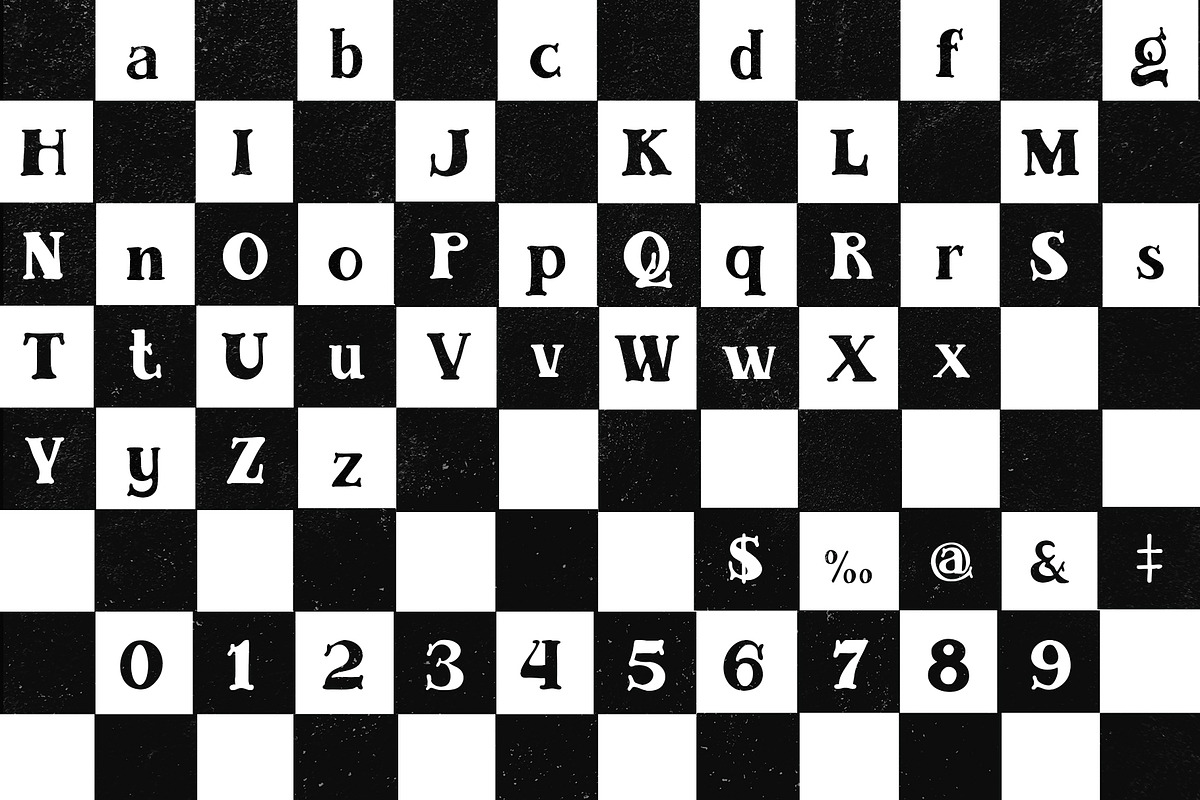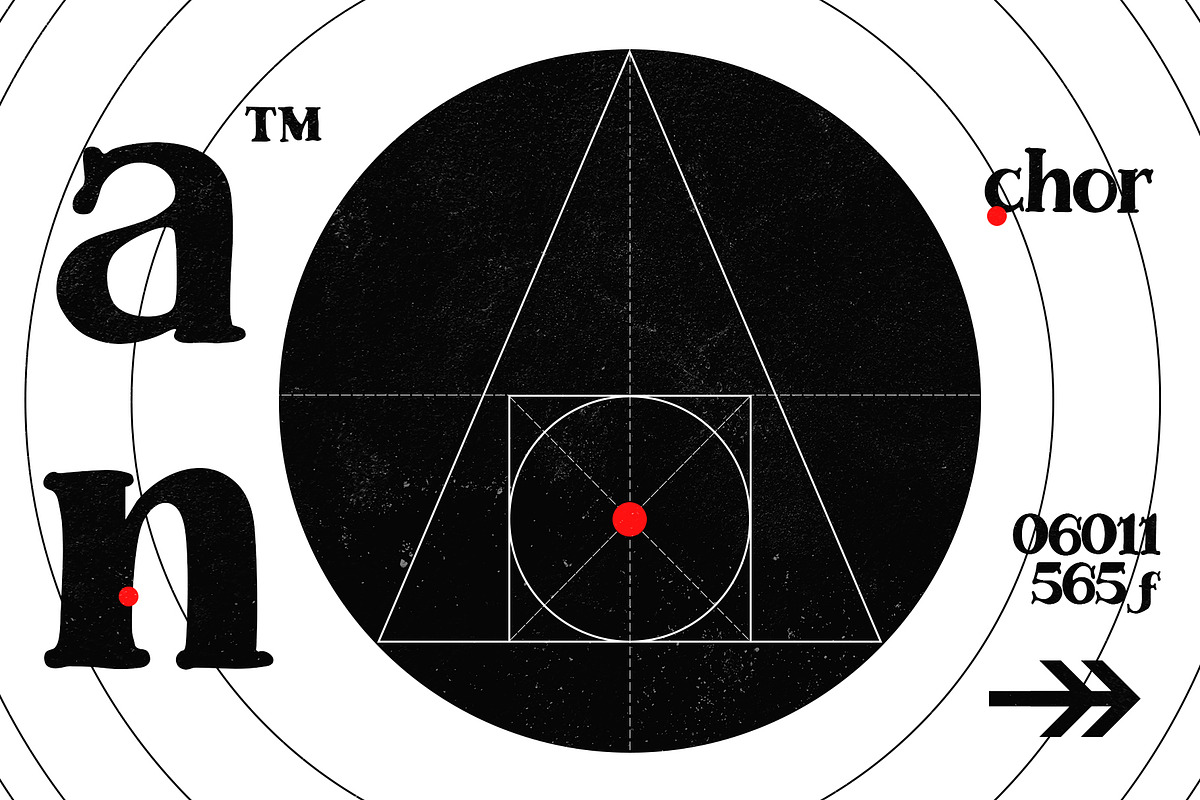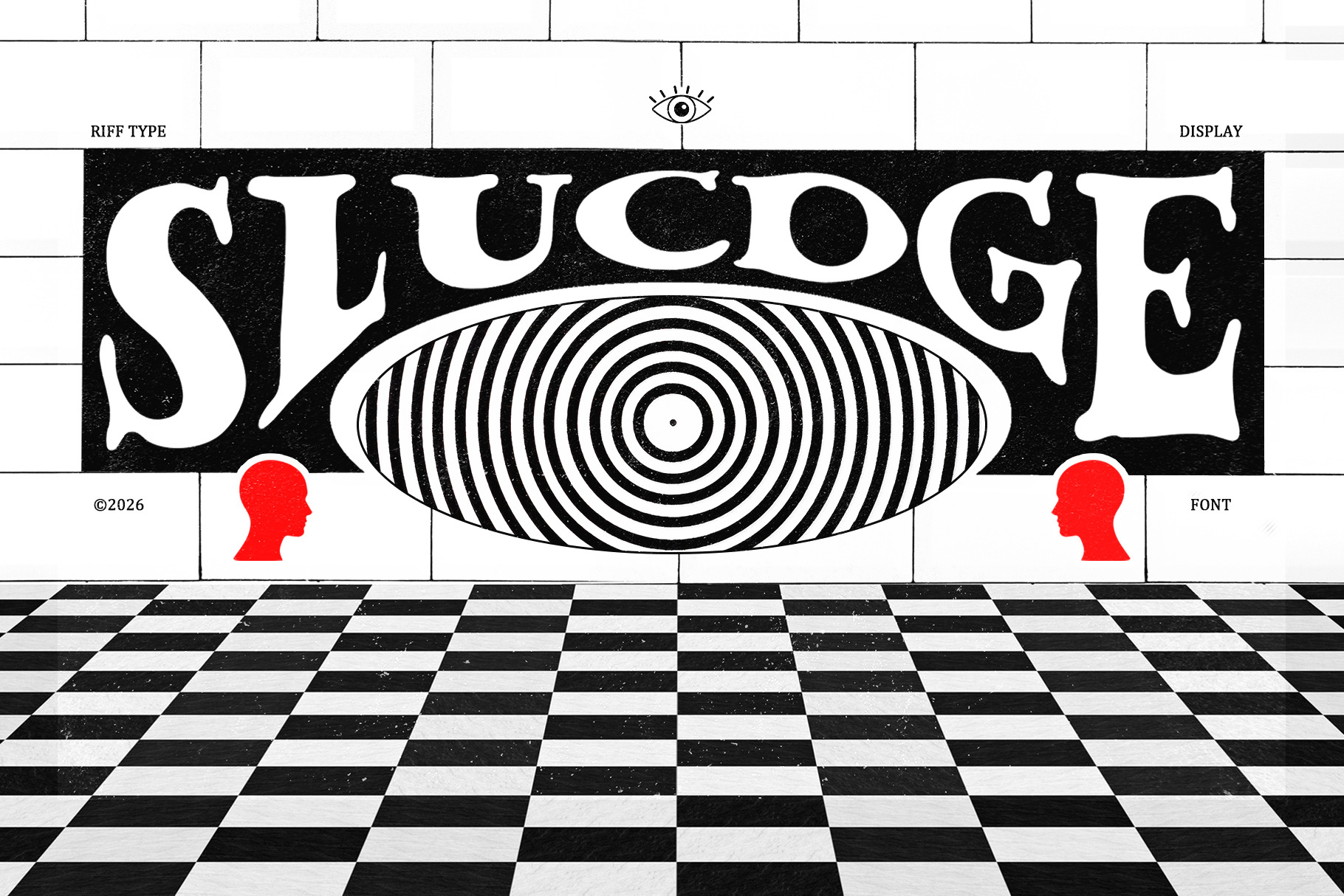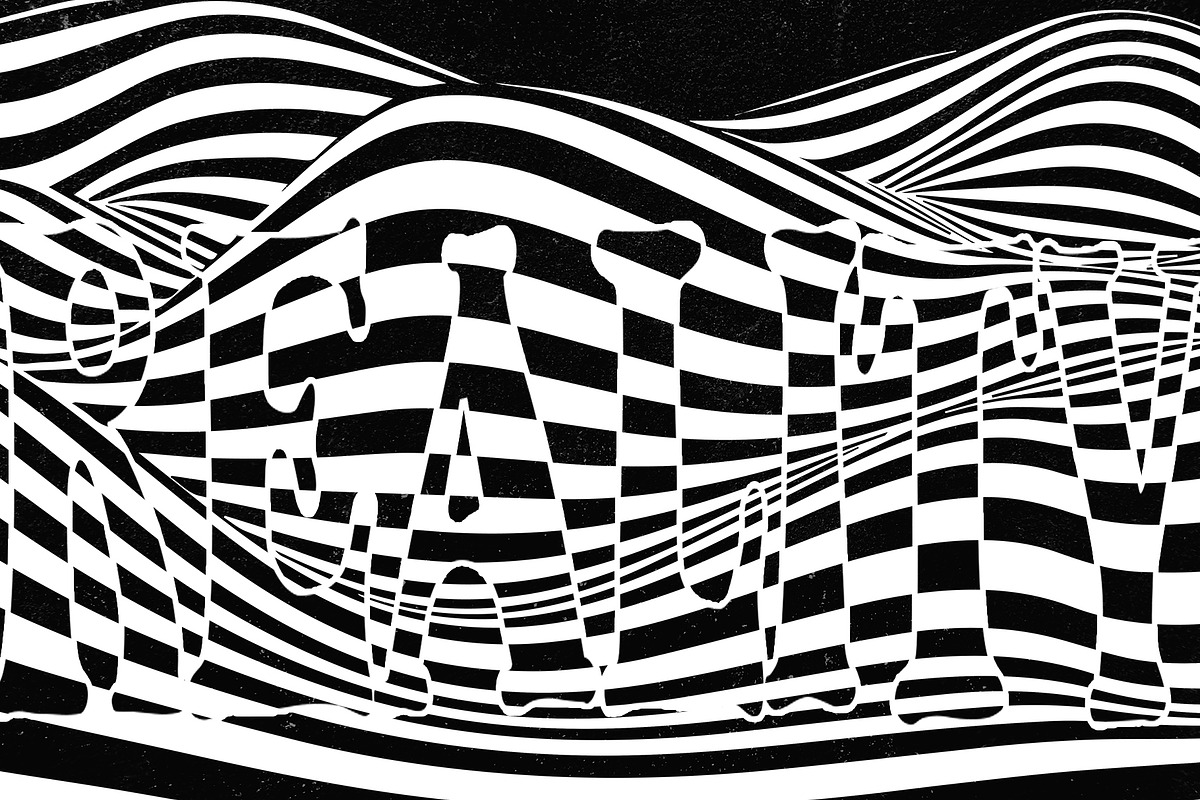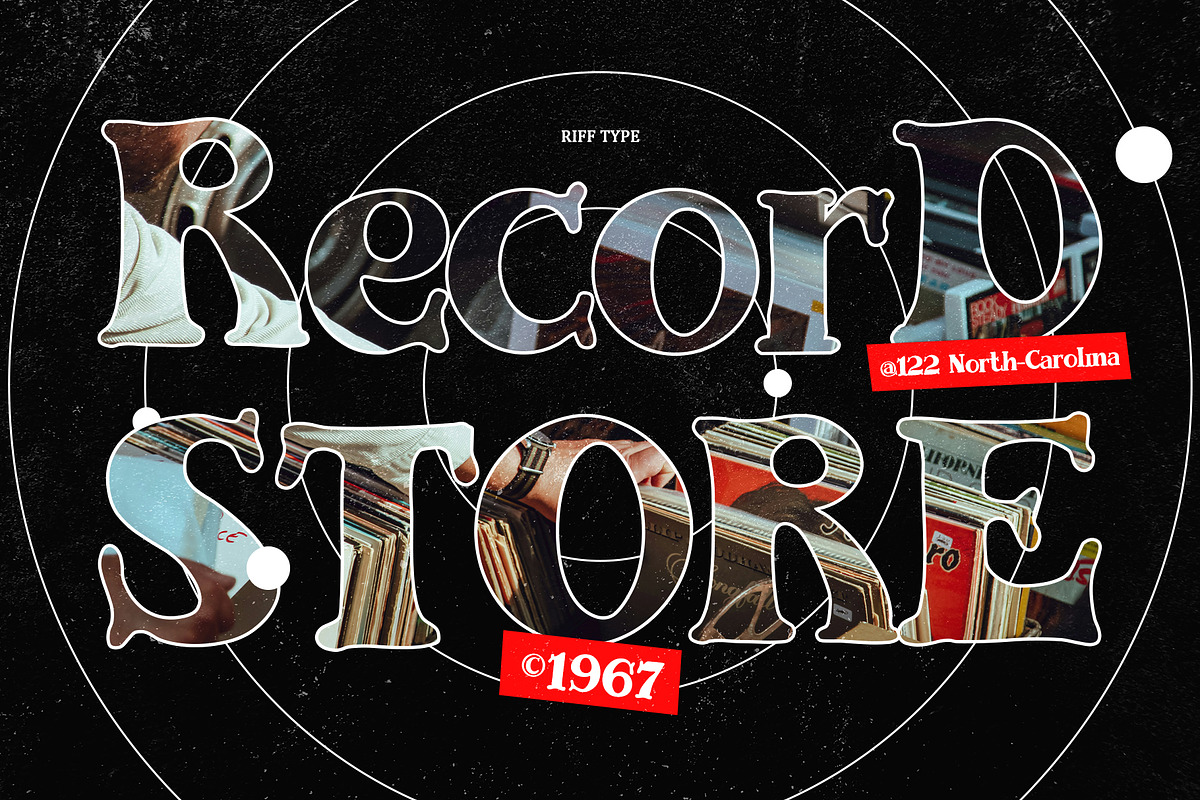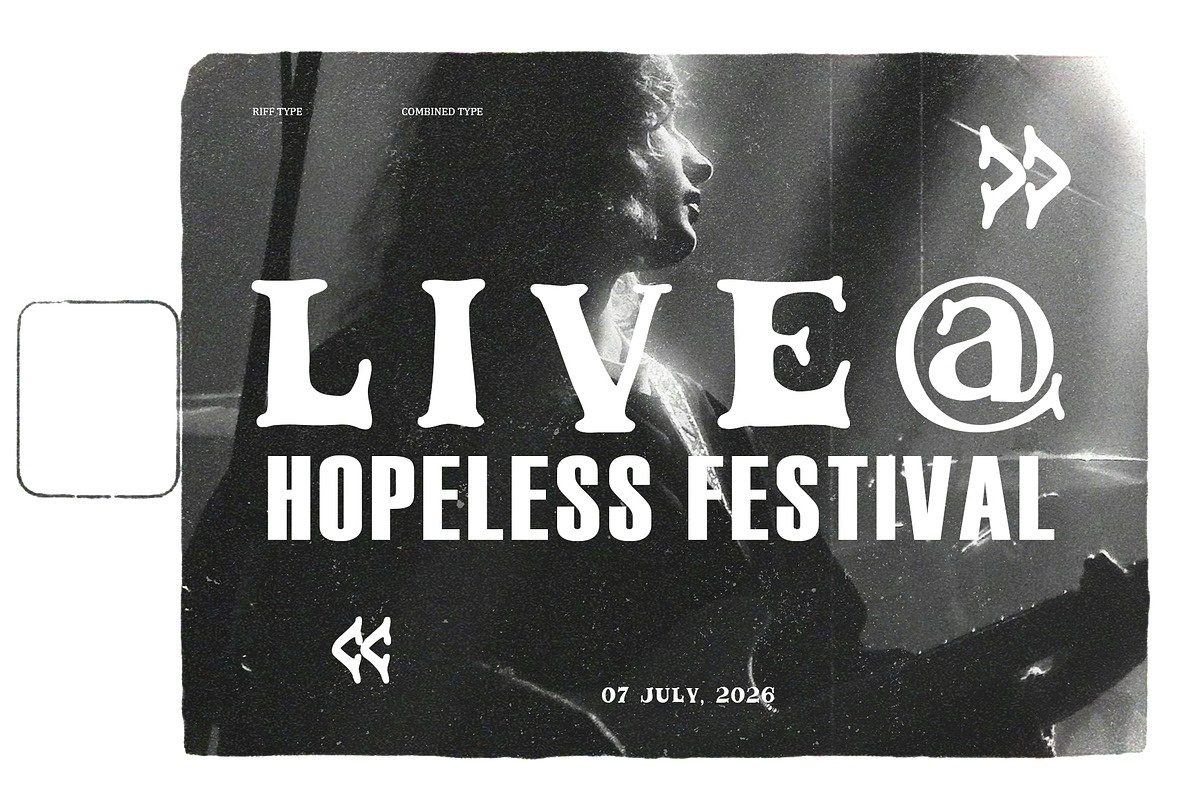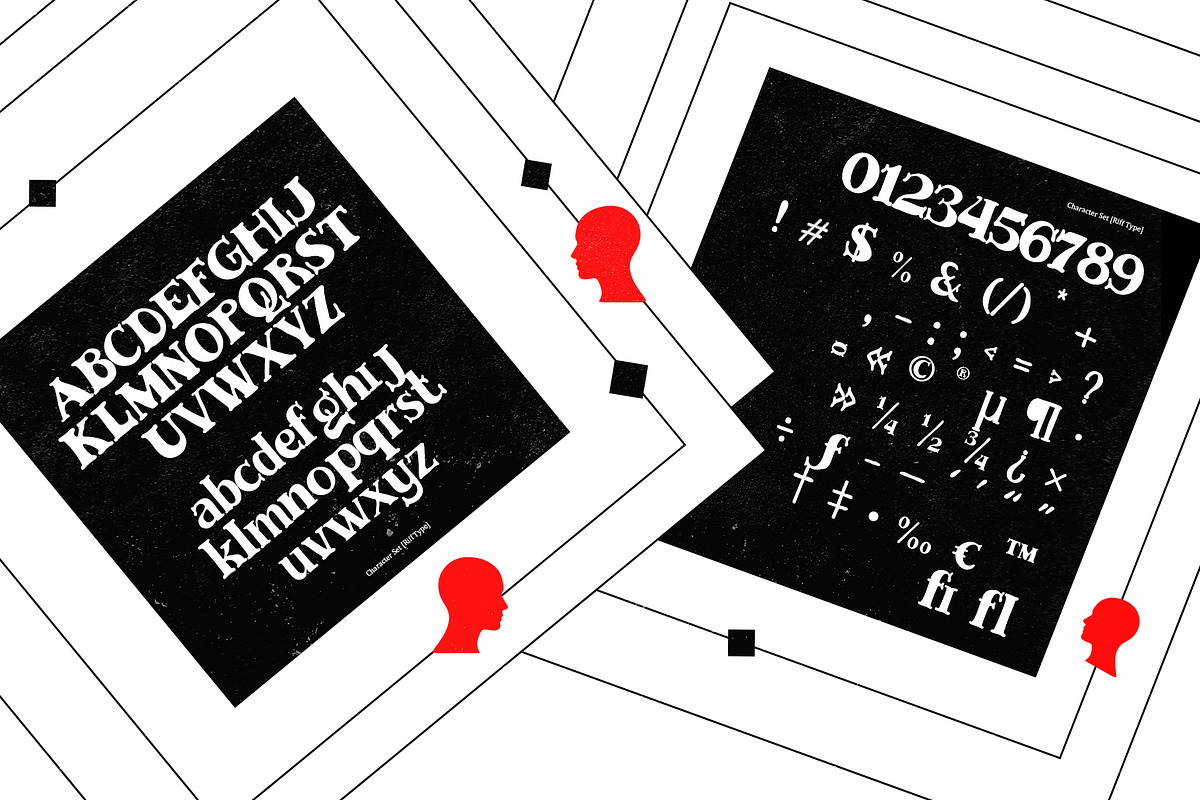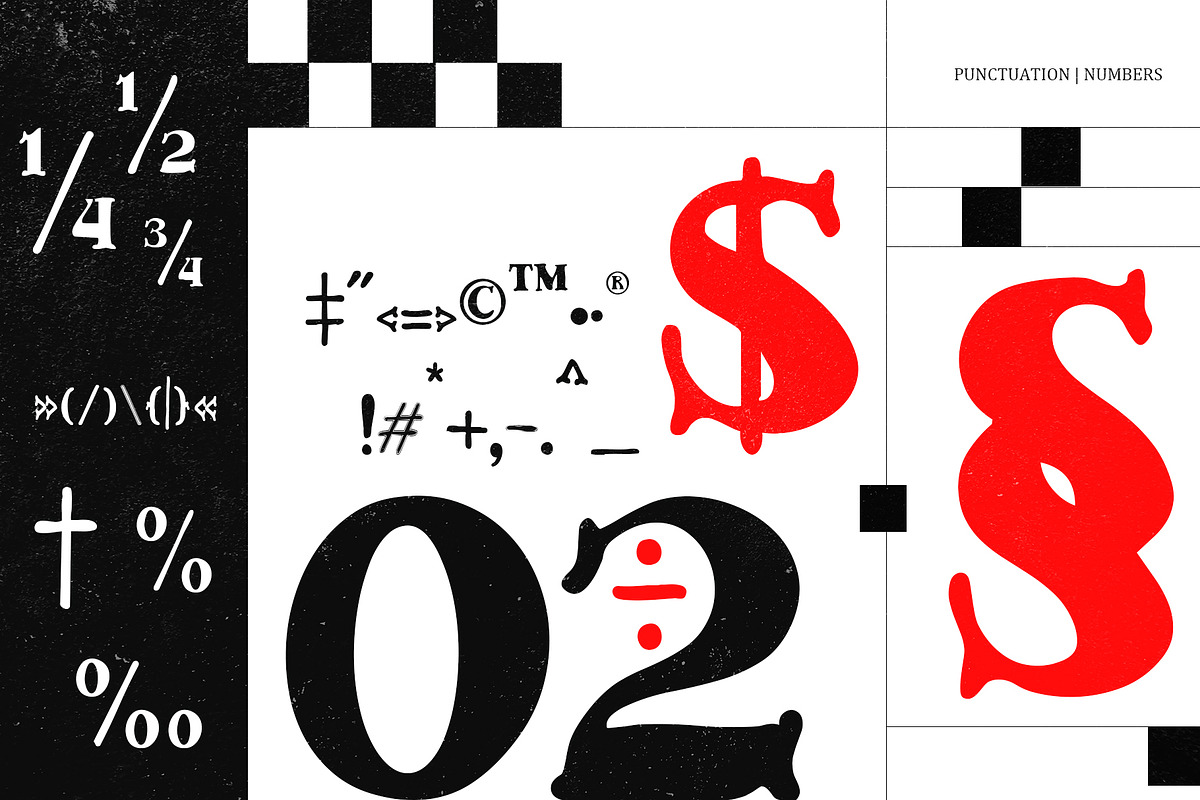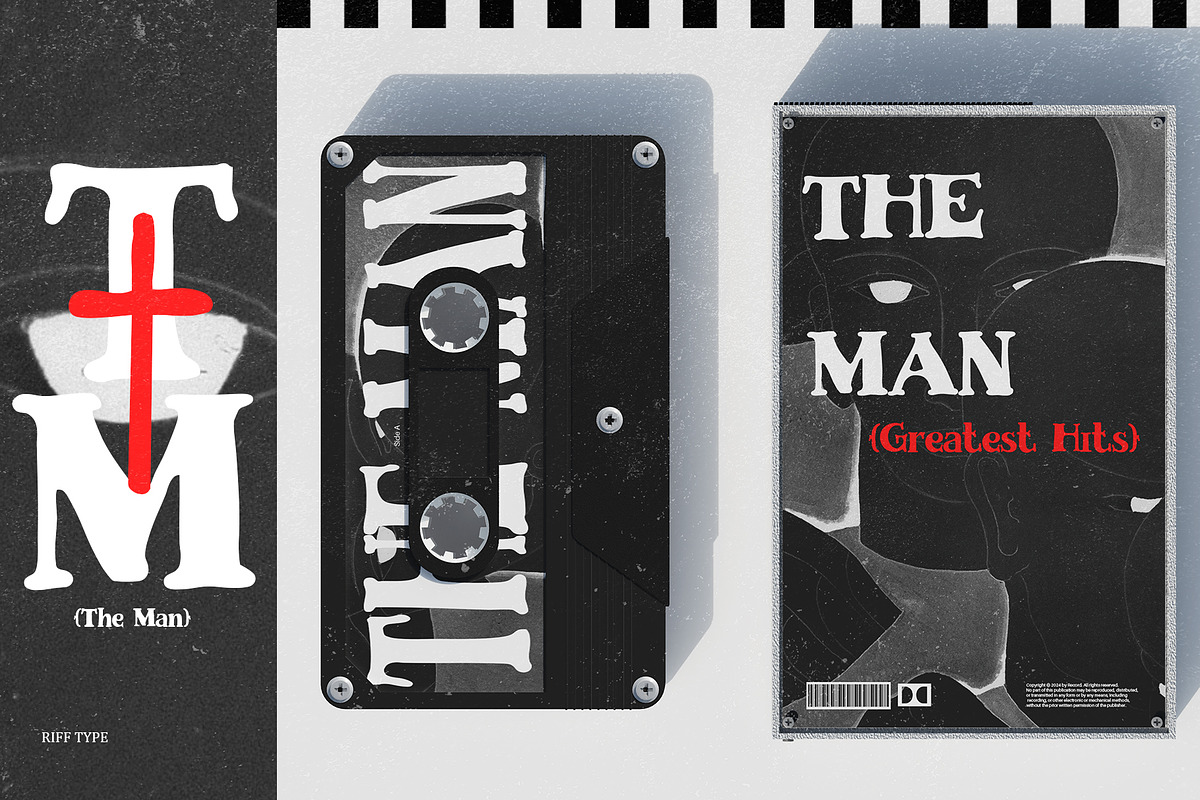
SLUCDGE - Handcrafted Groovy Font
SLUCDGE - Its unique and slightly irregular letterforms are perfect for psychedelic, classic rock, folk, and blues-style posters, giving your projects an authentic and eye-catching look.
Make your projects stand out with this unique and expressive display font.